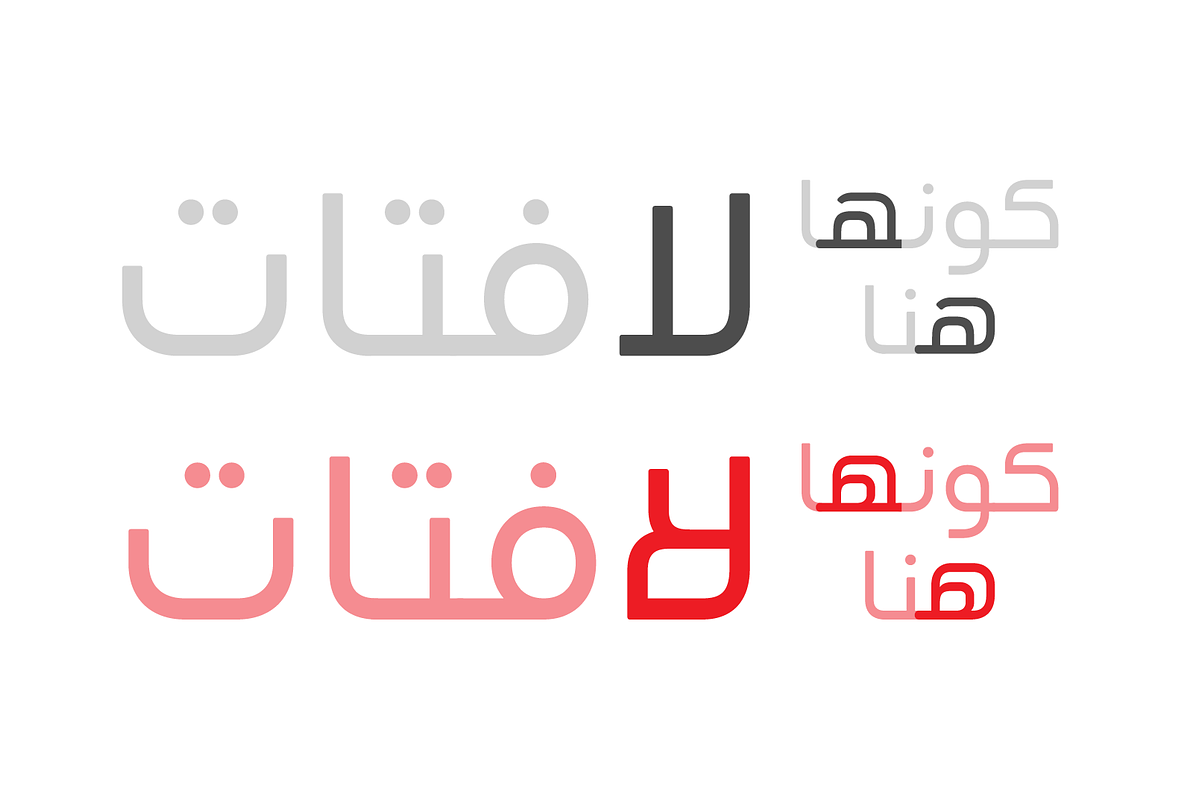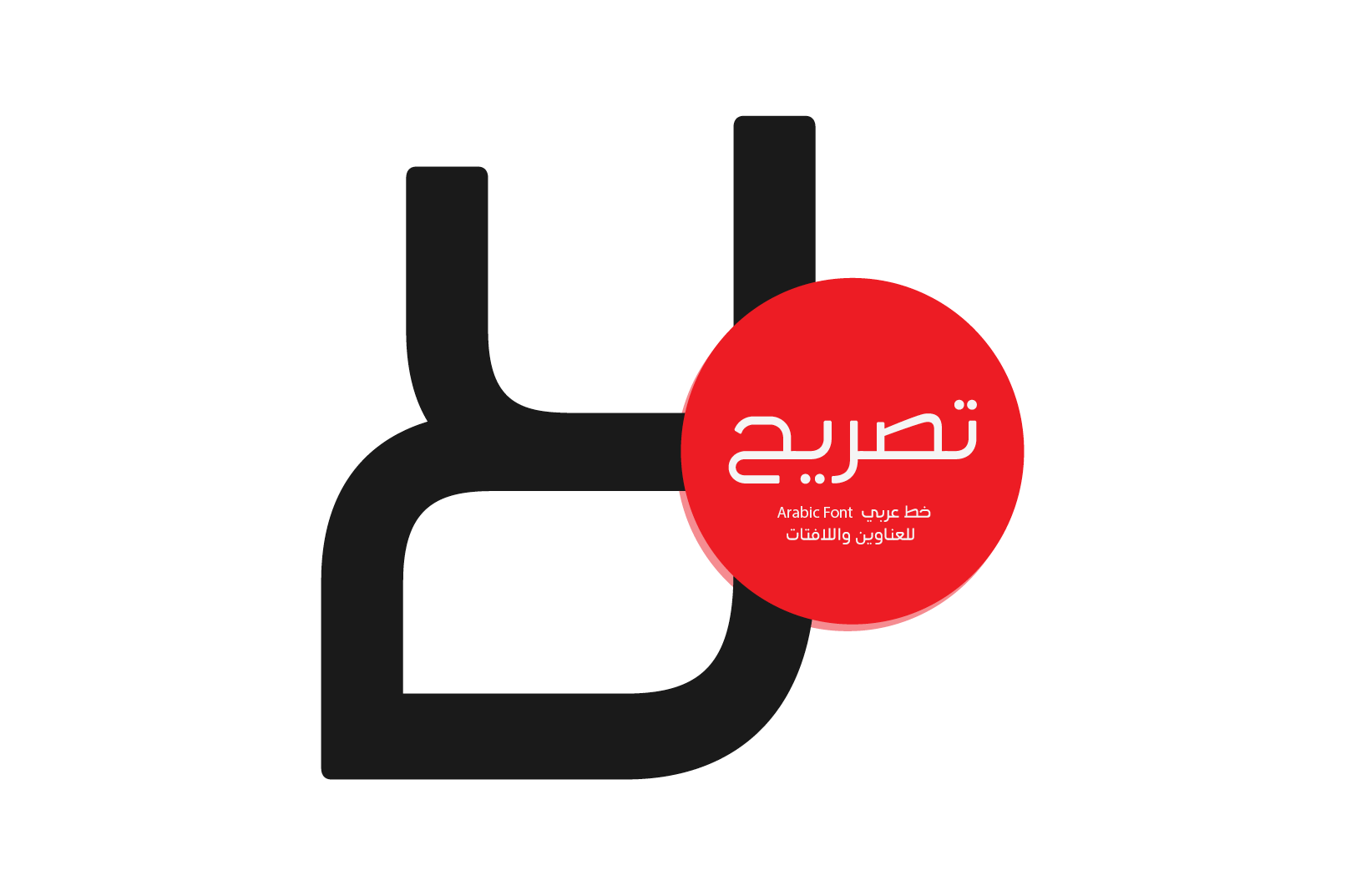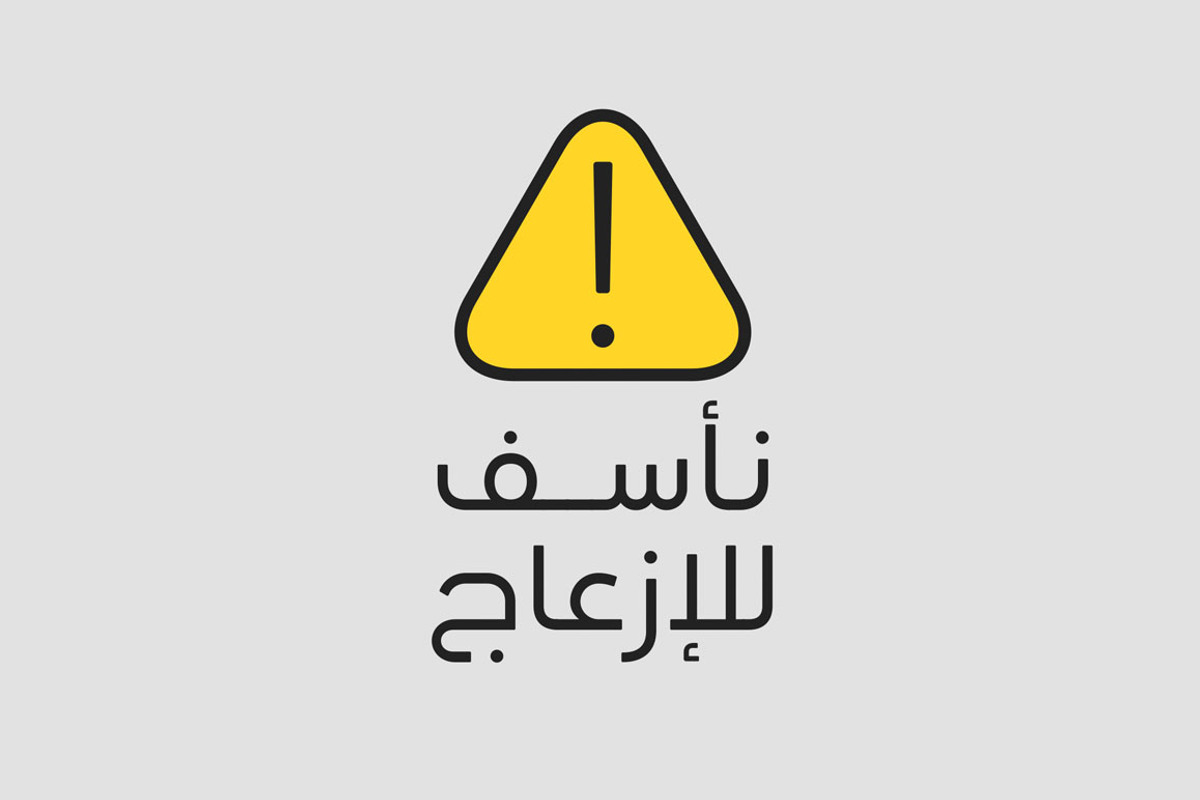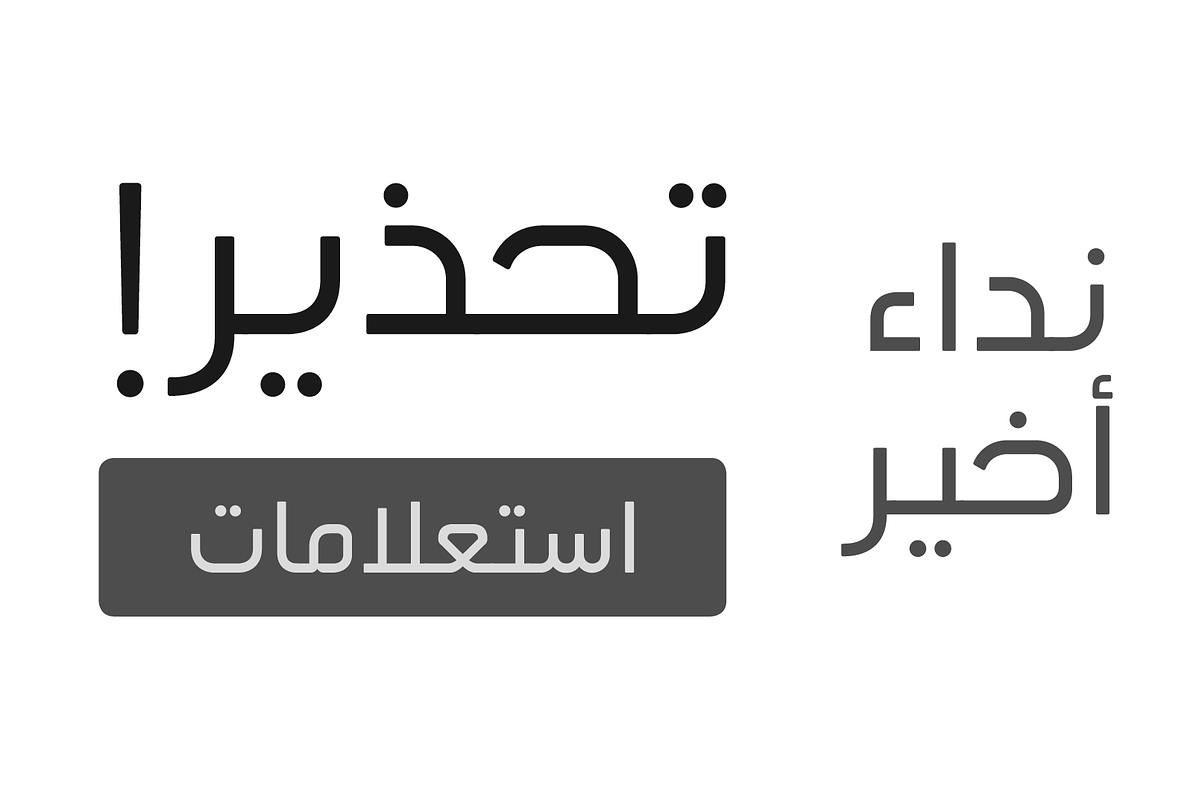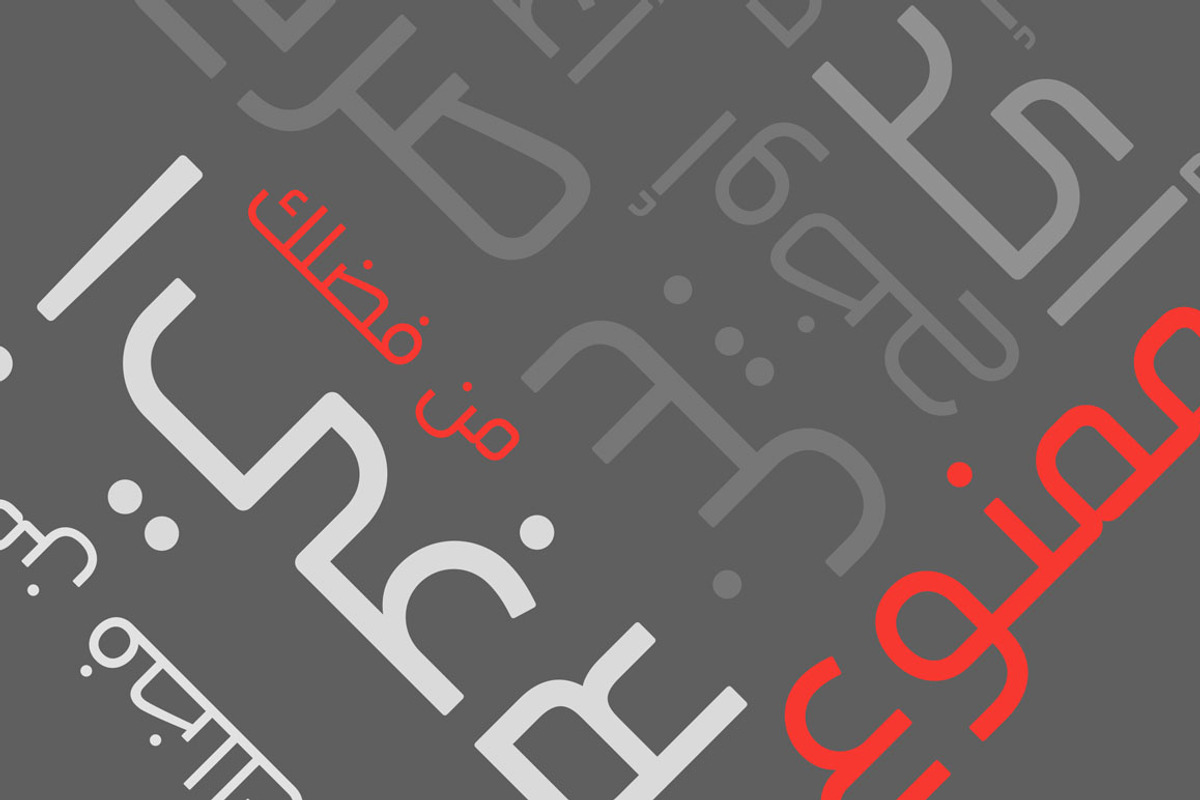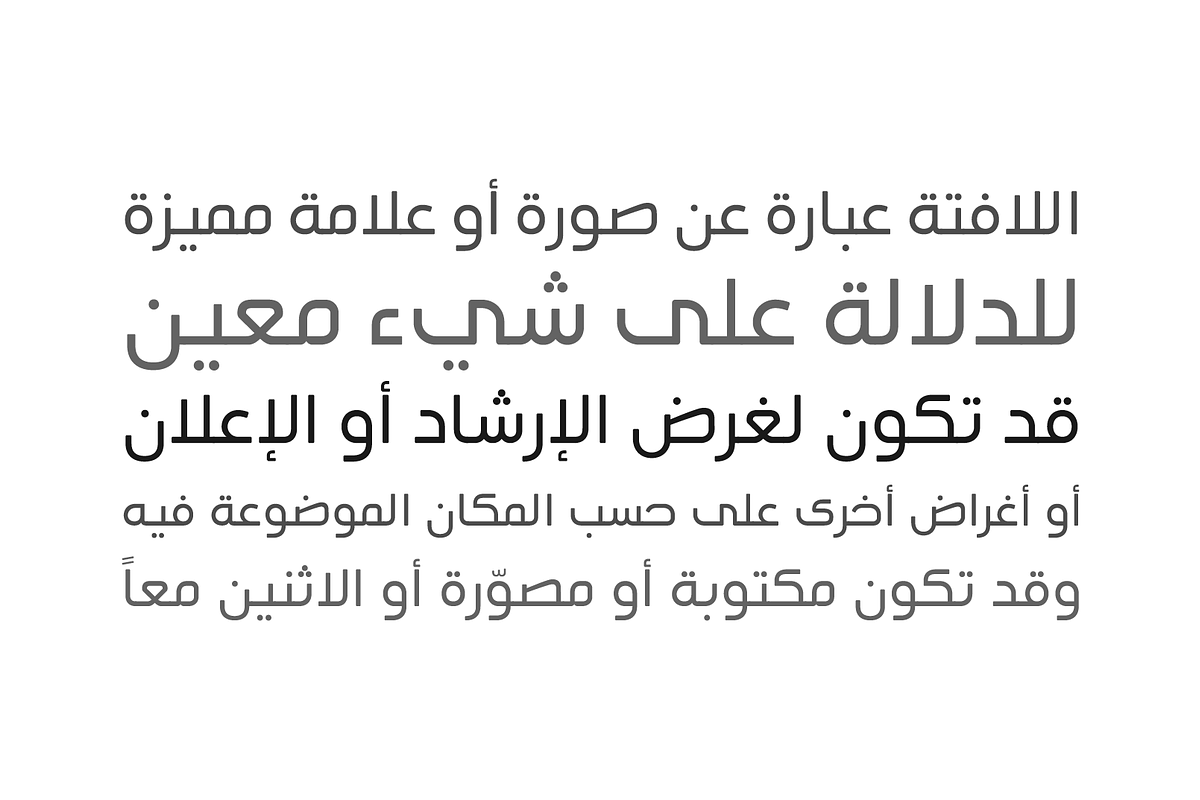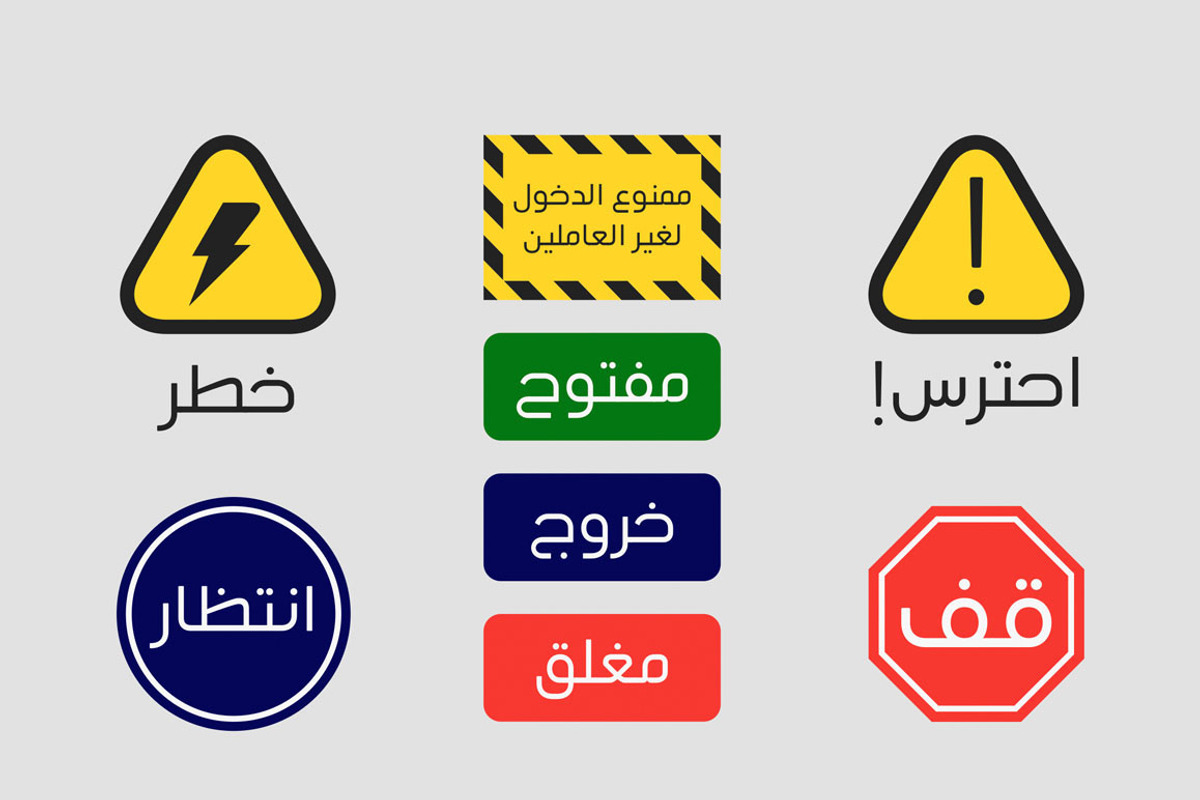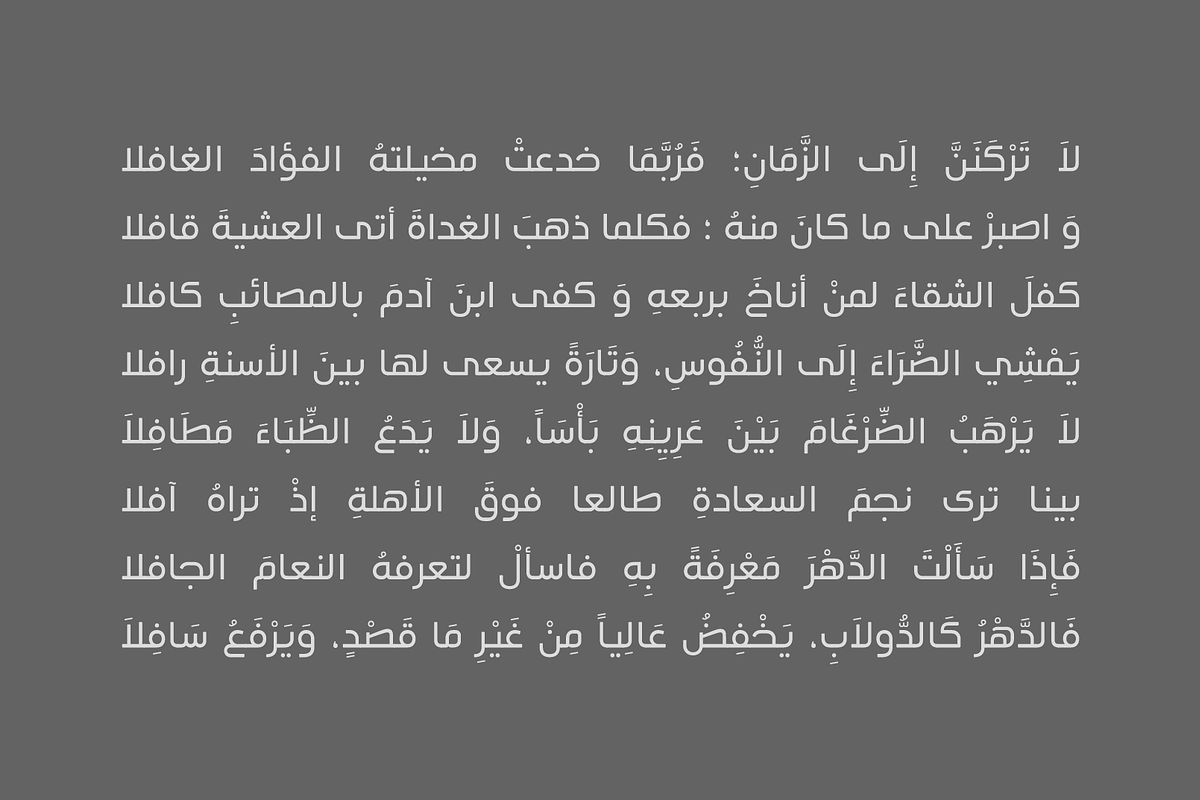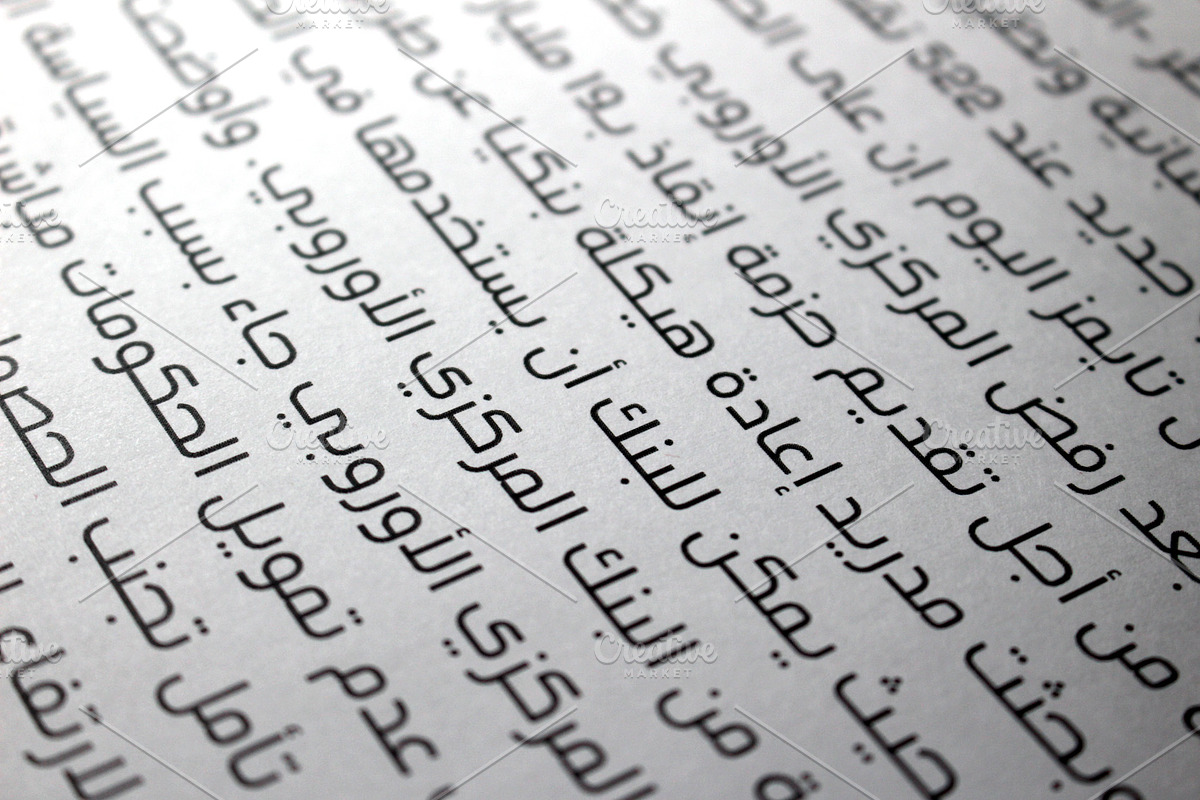
Tasreeh - Arabic Font
If translated from Arabic, the word Tasreeh has multiple meanings between statement, permit or announcement. Tasreeh is an Arabic font that brings a special impression of text effectuality to words and phrases due to its active letterform structure. The font accordingly suits titling, signage design, instructional design and news heading. Beside publication and other commercial designs.